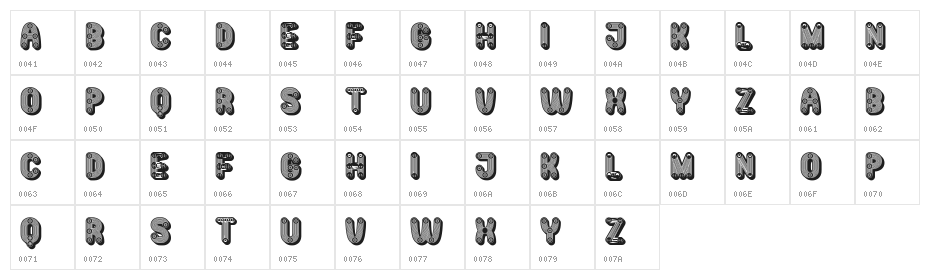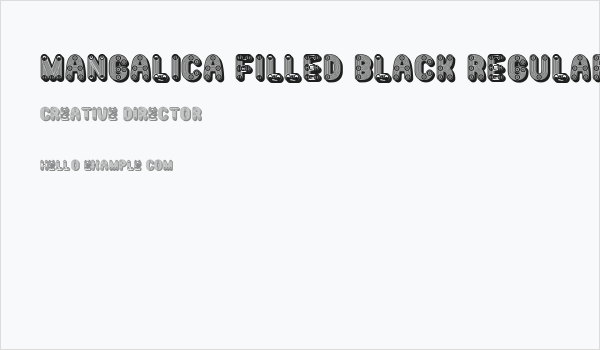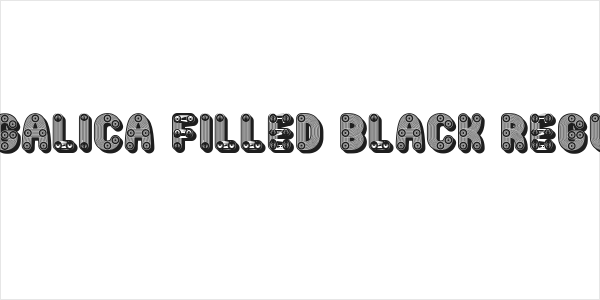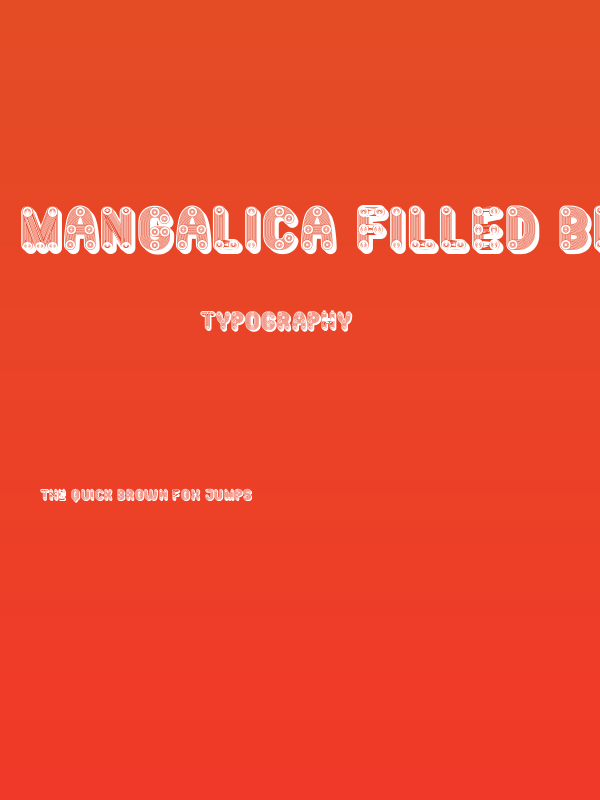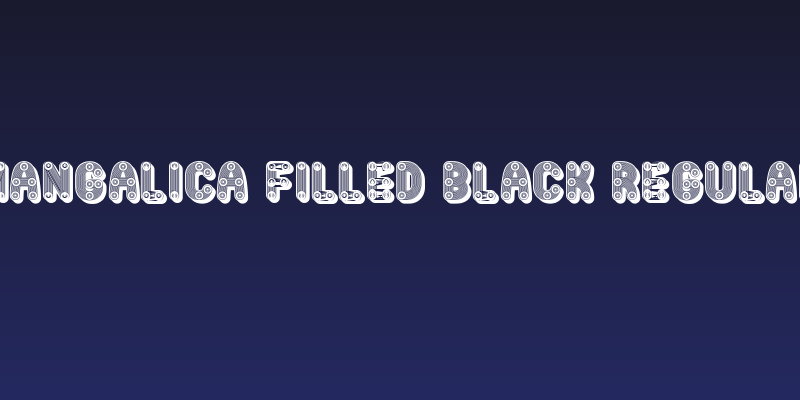
Mangalica Filled Black Regular Font
Mangalica Filled Black Regular Description
This font features a bold and playful design with a filled, black appearance. Each character is uniquely styled with intricate patterns and textures, giving it a three-dimensional look. The letters are rounded and have a mechanical, gear-like aesthetic, making them stand out with a distinct industrial vibe. The font is highly decorative, with each letter containing detailed elements that add depth and interest. Its unique style makes it suitable for projects that require a strong visual impact.
| Proposed Projects | Ideal for posters, branding, and any design requiring a bold, industrial look. |